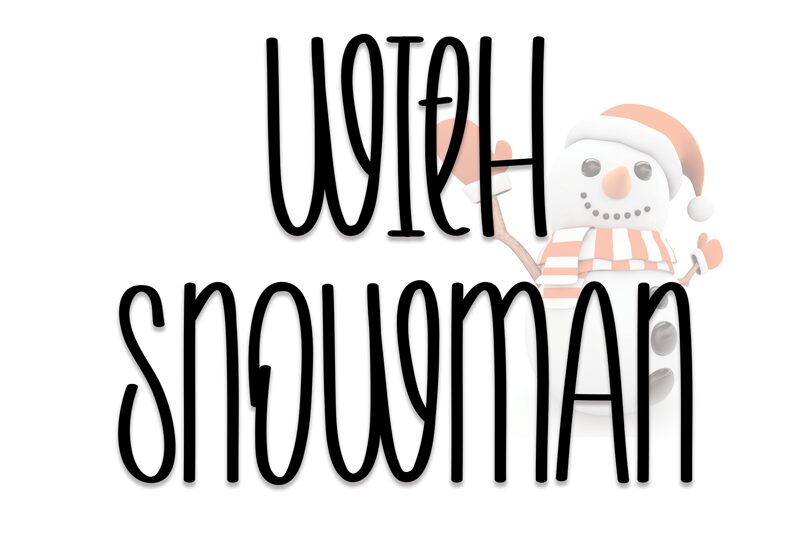
With Snowman
With Snowman, a handwritten typeface crafted by Scratchones, exudes charm with its semi-light weight and an artistic flair that brings a personal touch to any project. The delicate strokes and subtle variations in thickness offer an aesthetic that is both approachable and sophisticated, making it an excellent choice for designs that require a hint of individuality without sacrificing elegance.
The With Snowman font boasts an organic feel reminiscent of classic cursive writing but with a modern twist. Its legibility and distinctive style make it suitable for a vast array of creative endeavors—from branding projects to personalized stationery or social media graphics—where the goal is to convey warmth and authenticity.
This font's adaptability ensures that it can seamlessly transition from casual contexts to more formal applications. With its handwritten character and semi-light weight, With Snowman invites designers to infuse their work with a sense of intimacy and bespoke charm that stands out in today's digital age.